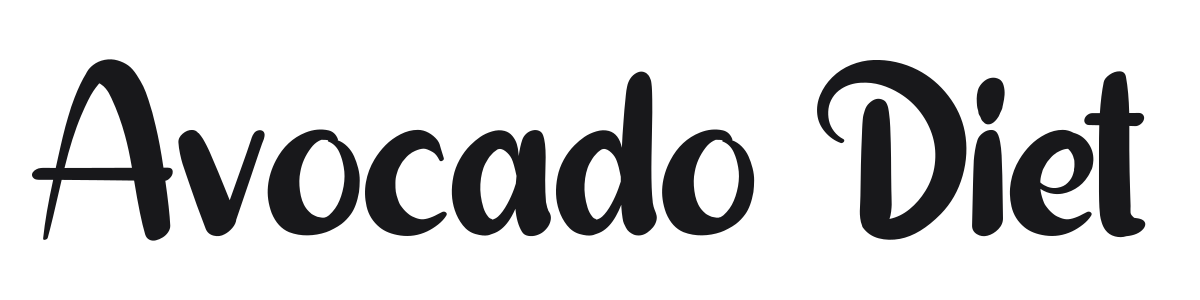
Avocado Diet
Avocado Diet is a bold casual script with rounded, flowing strokes and a confident hand-lettered personality. Its heavy weight and smooth connections give it an easygoing warmth that works naturally for food brands, wellness packaging, and lifestyle branding. The chunky rounded forms keep it legible at display sizes without losing any of its relaxed character.